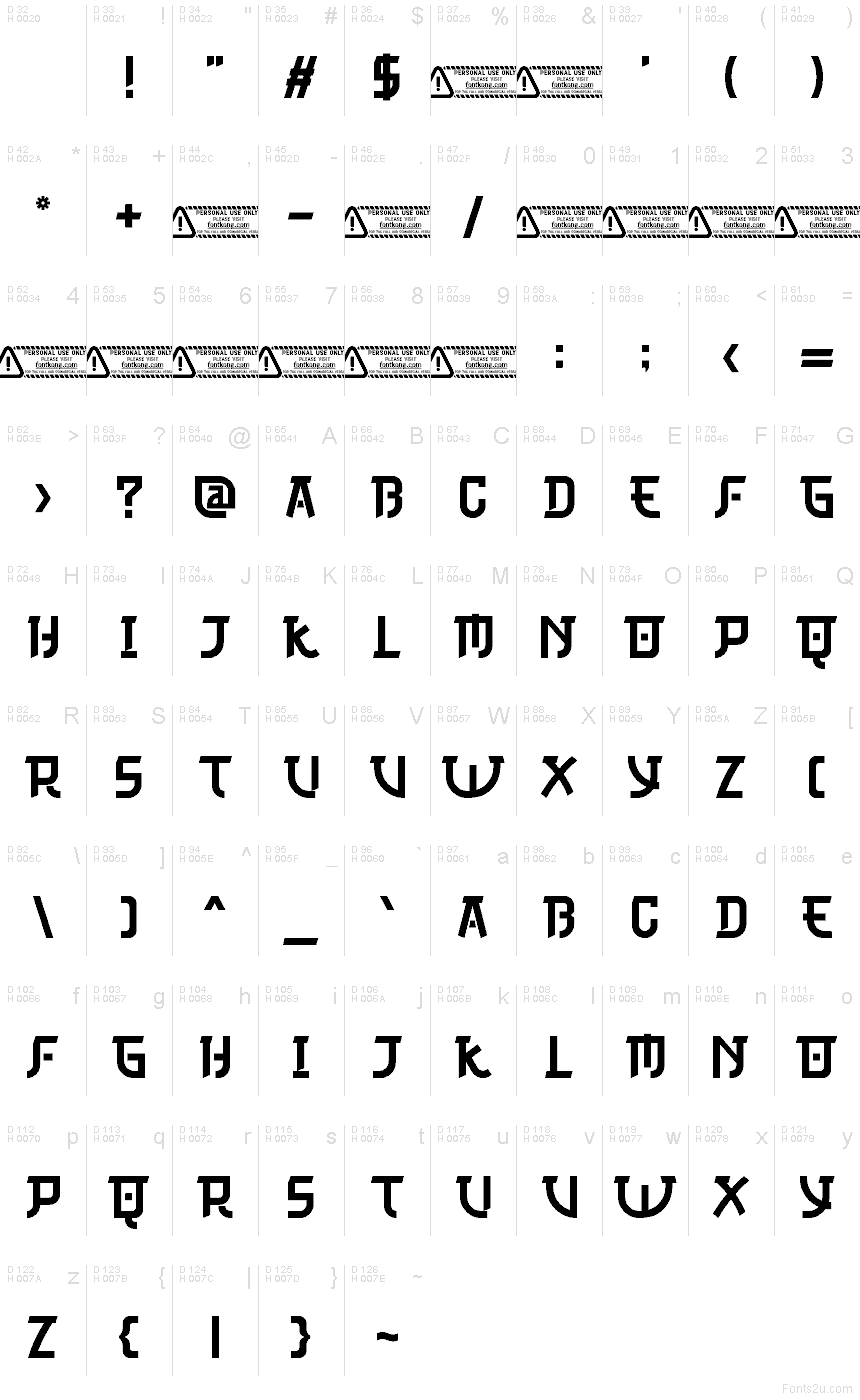
Gong Xi Fa Cai font by Kong Font is a geometric display font with angular letters that feature ear-catching designs. It resembles some of the characteristics of Chinese calligraphy with its short width, uniform structure, and unique letter terminals. The uniformed structure gives it an unusual appeal that’s sought after for certain design projects.
The free Gong Xi Fa Cai font will not fit trendy design jobs; however, designers interested in impressing through gentle typographic contrast should give it a try. It would be especially great for product packaging and branding projects in addition to invitation cards and restaurant menu designs.